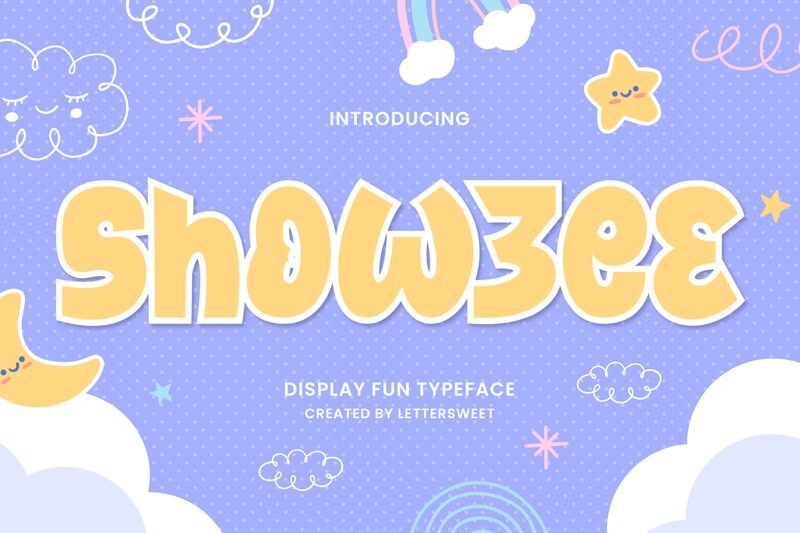
Showzee-Regular
Unleash your creativity with Showzee, the playful masterpiece from Lettersweet Studio. This extra-bold, semi-condensed display font captures the essence of whimsy and charm with its cartoon-inspired style.
Perfect for grabbing attention and injecting personality into your projects, Showzee shines in everything from captivating children's book titles to standout packaging designs. Its friendly curves and delightful irregularities make it a go-to choice for designers seeking to add a touch of joy and uniqueness to their work.
Embrace the fun-loving spirit of Showzee and watch as it transforms your creative concepts into eye-catching realities that speak directly to the heart.